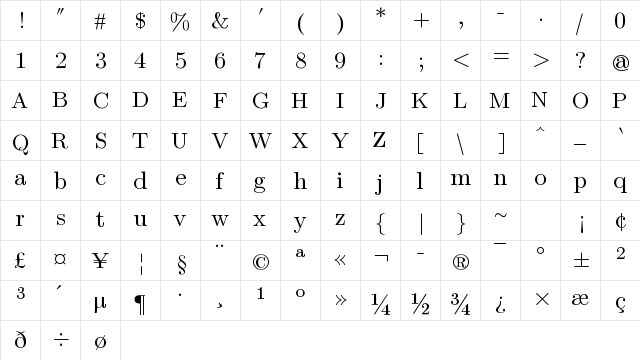
Symbola Regular
| Designer | George Douros |
Design Context for Symbola Typeface
Symbola takes a measured approach to typography — its balanced proportions and neutral character make it a reliable workhorse for both digital and print work.